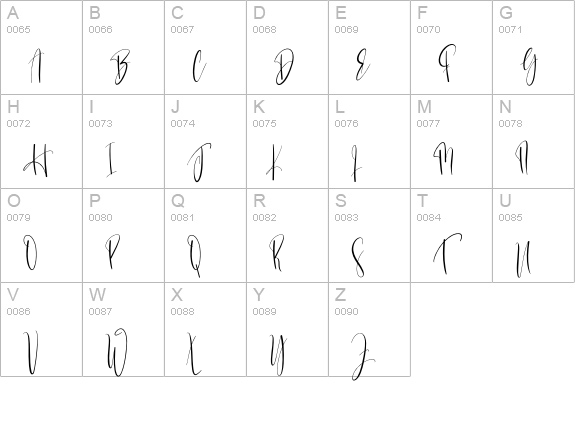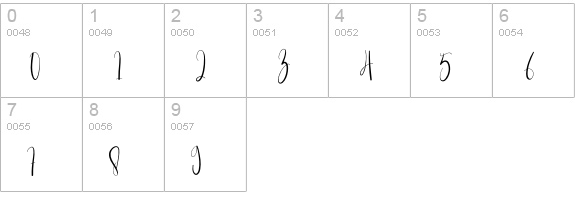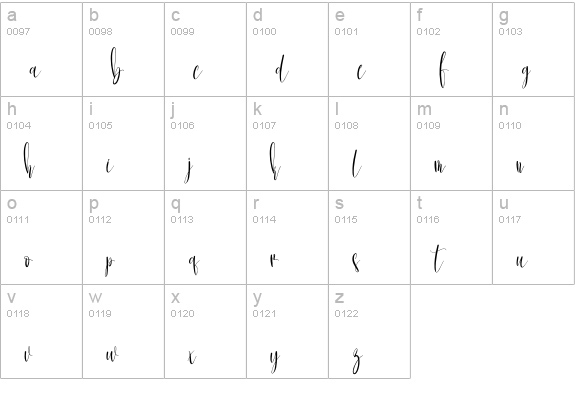
Winter Font Details
Winter is a free for personal use font in the Script > Handwritten category, designed by scratchones. It has been downloaded 10 times and is available for Windows, Mac and Linux.
Winter font is a whimsical and elegant typeface that perfectly captures the essence of the winter season. With its delicate lines and frosty details, this font is sure to bring a touch of magic to any design project. Whether you're creating holiday cards, winter-themed invitations, or seasonal banners, Winter font will add a touch of charm and sophistication.